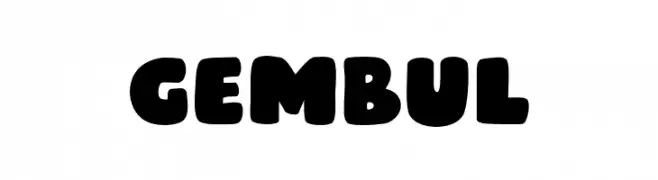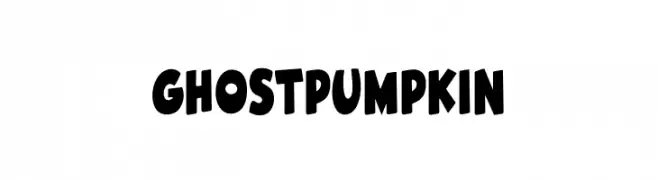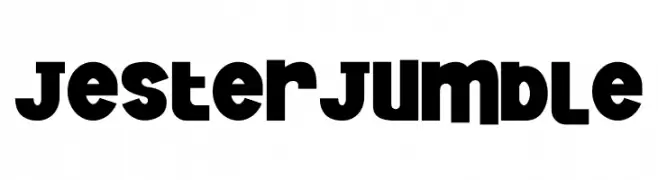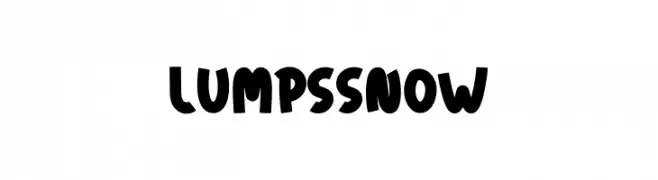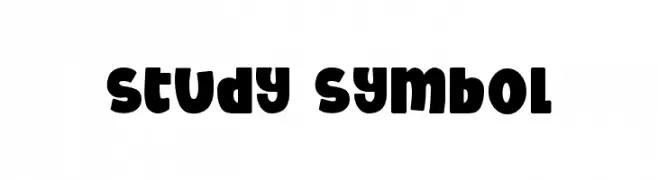
( Fonts by PutraCetol Studio )
A bold, playful font with chunky, whimsical characters.
( Fonts by PutraCetol Studio )
A bold, rounded font with a playful and chunky style.
( Fonts by Andi Moz )
A playful, bold font with chunky, rounded letters and a whimsical design.
( Fonts by Namela Type )
A bold, playful font with chunky, whimsical characters.
( Fonts by productype.com )
A bold, rounded font with a playful and chunky style.
( Fonts by Origin Type )
A bold, rounded font with a playful and chunky style.
( Fonts by creatype designer )
Bold and playful font with chunky, irregular shapes.
( Fonts by Divide By Zero! - fonts.tom7.com )
A playful, hand-drawn font with bold, irregular characters.
( Fonts by www.stimuleyefonts.com )
A bold, playful font with thick, rounded strokes and a whimsical style.
( Fonts by www.aenigmafonts.com )
A bold, distressed font with a weathered, rustic appearance.